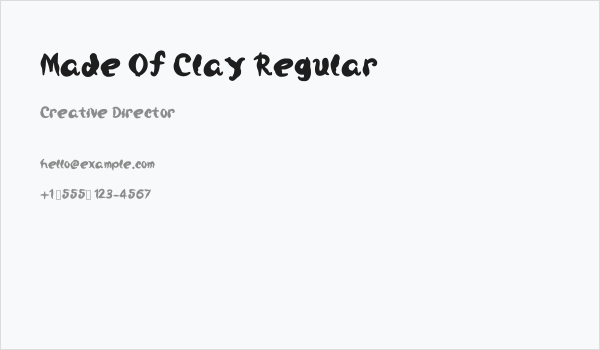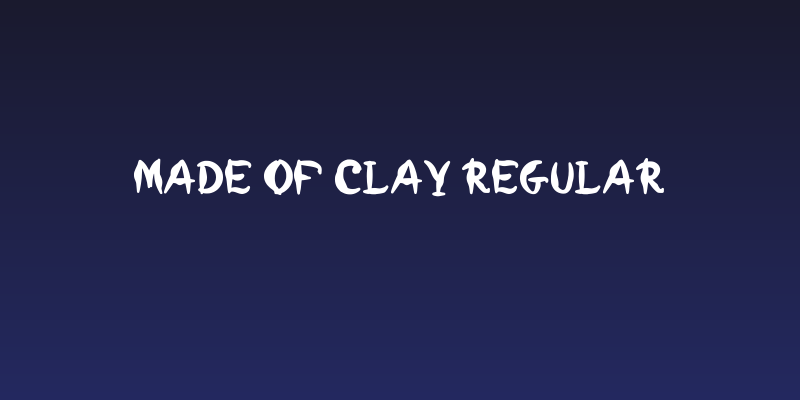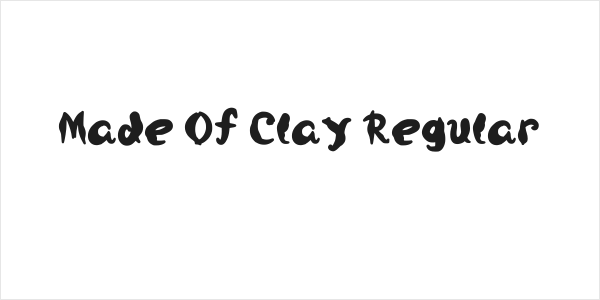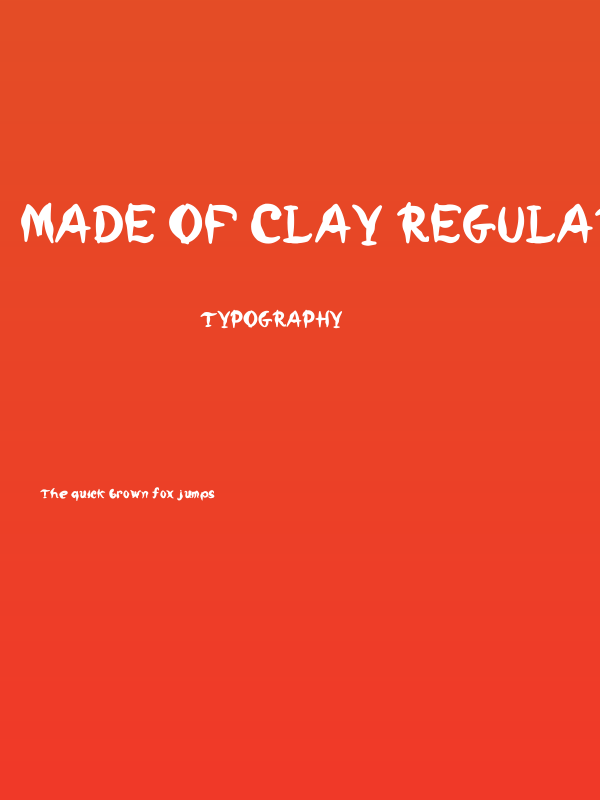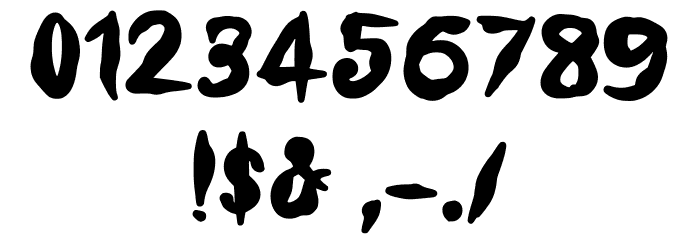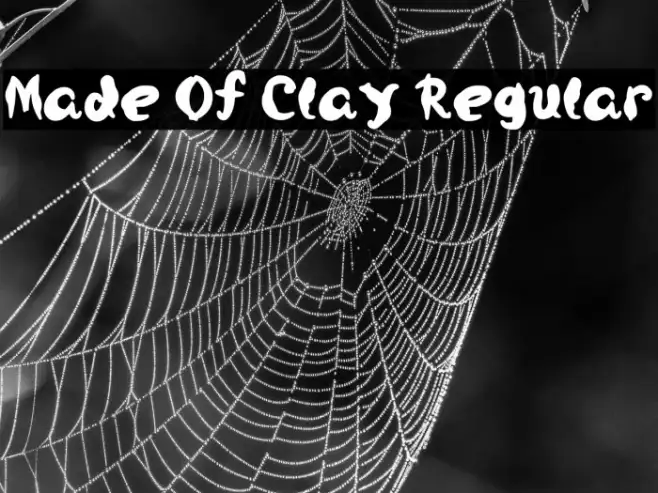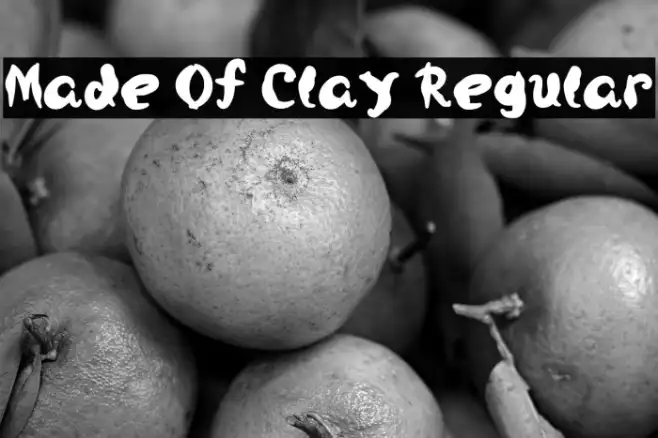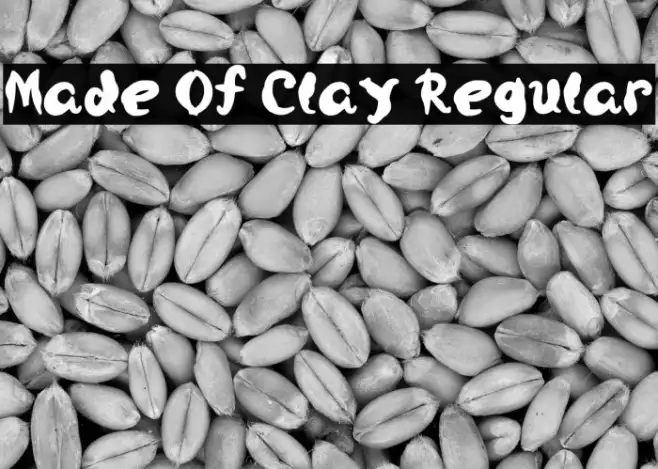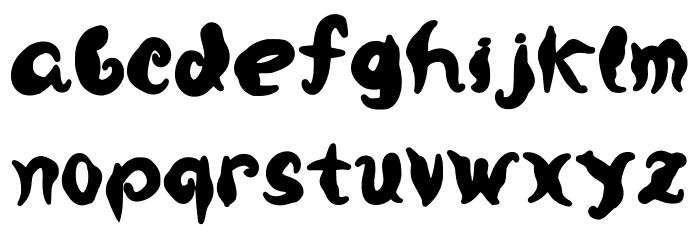
Made Of Clay Regular Font
Made Of Clay Regular Description
This font exudes a playful and artistic vibe, reminiscent of hand-molded clay. The characters are bold and irregular, with a unique, organic flow that suggests a handcrafted touch. The strokes are thick and uneven, giving each letter a distinct personality. The uppercase and lowercase letters maintain a consistent style, while the numbers and special characters complement the overall aesthetic. This font is ideal for projects that require a creative and informal look, such as children's books, artistic posters, or branding for artisanal products.
| Overall Style | Artistic, Playful |
| Proposed Projects | Children's books, artistic posters, branding for artisanal products, creative invitations. |